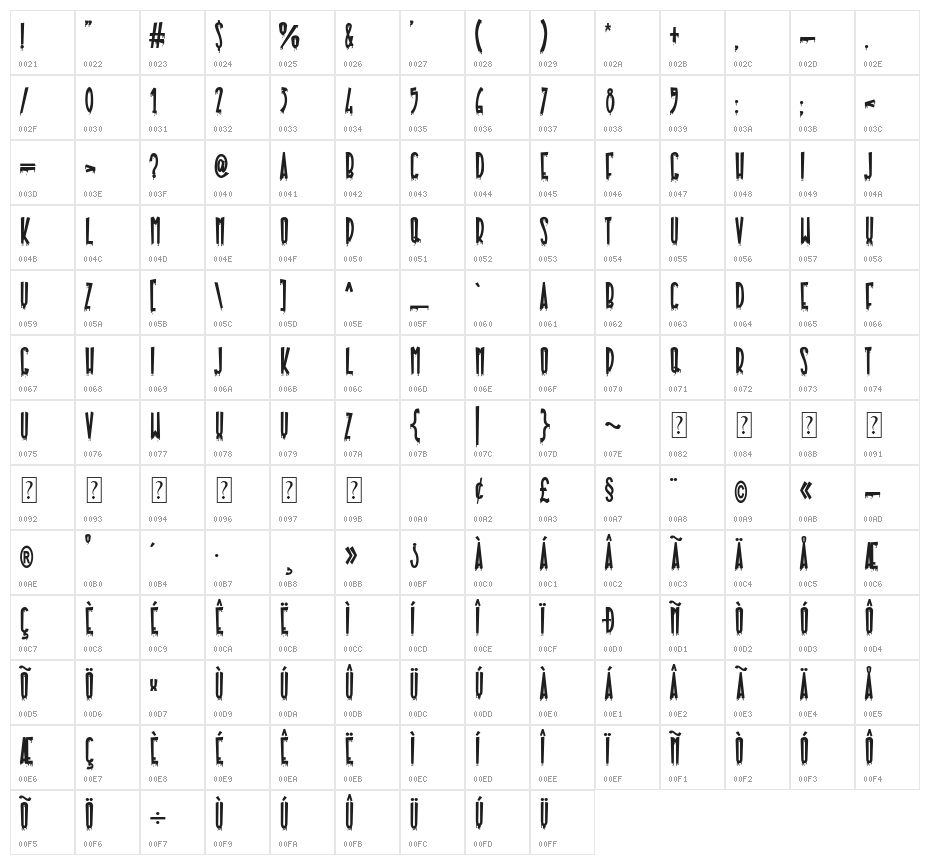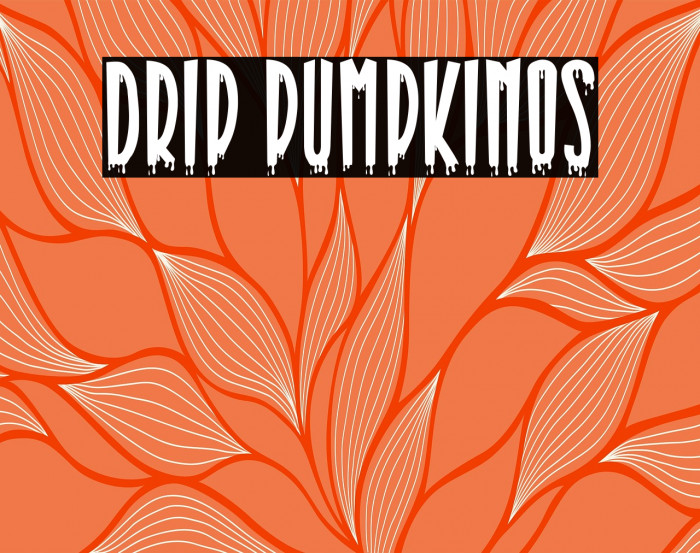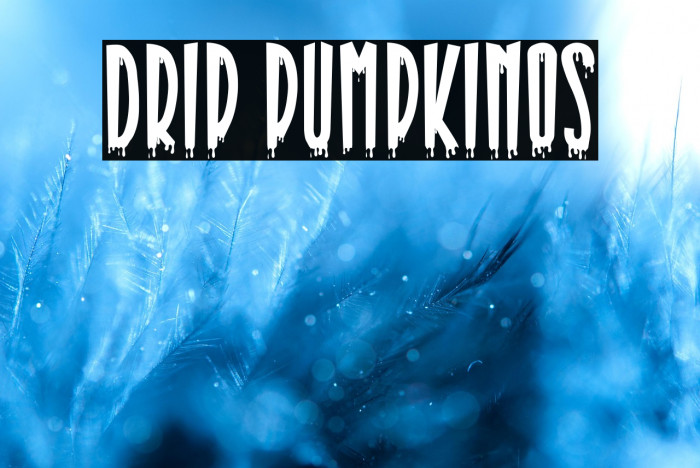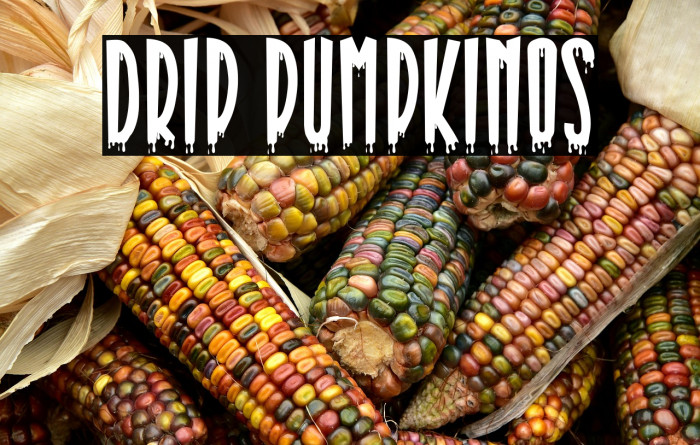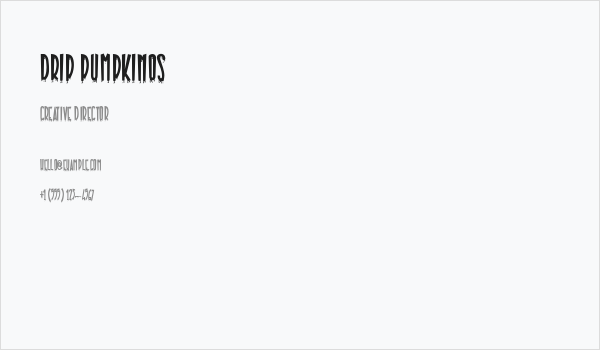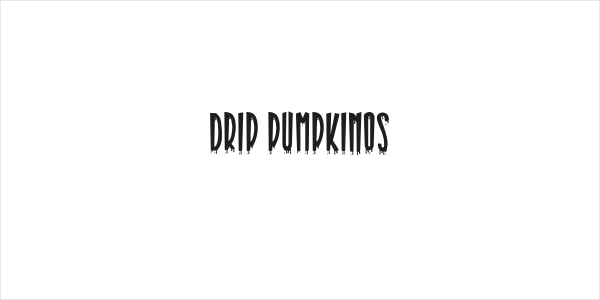
Drip Pumpkinos Font
Drip Pumpkinos Description
This font features a playful and spooky design, reminiscent of dripping paint or melting wax. Each character has a unique, irregular bottom edge that gives the impression of liquid slowly seeping downwards. The uppercase and lowercase letters maintain a consistent height, contributing to a cohesive appearance. The numbers and special characters follow the same dripping motif, ensuring uniformity across all glyphs. This font is perfect for Halloween-themed projects or any design requiring a touch of eerie creativity.
| Proposed Projects | Ideal for Halloween invitations, horror movie posters, themed party decorations, and spooky merchandise designs. |